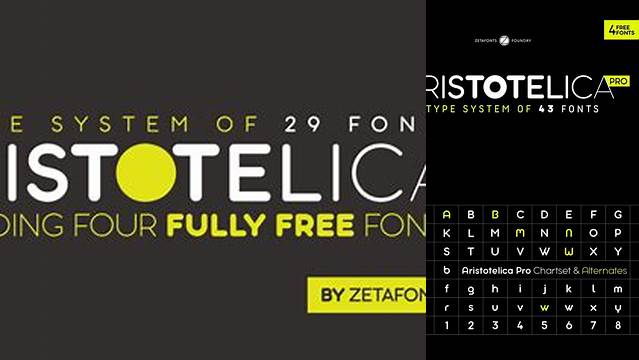
Hey guys! Are you on the hunt for a font that screams sophistication and commands attention? Look no further! We're diving deep into the world of Aristotelica Pro Display Condensed Bold, a typeface that's both elegant and powerful. And guess what? We're talking about how to get your hands on it for free! Let's get started!
What is Aristotelica Pro Display Condensed Bold?
Before we jump into the download details, let's understand what makes Aristotelica Pro Display Condensed Bold so special. This font is a member of the Aristotelica Pro family, designed with a focus on readability and visual impact. The “Display” variant indicates that it’s optimized for larger sizes, making it perfect for headlines, posters, and branding materials. The “Condensed” aspect means it’s narrower than usual, allowing you to fit more text into a limited space. And, of course, “Bold” signifies a heavier weight, adding emphasis and presence to your words. This combination of characteristics makes Aristotelica Pro Display Condensed Bold an excellent choice for projects that need a touch of class and a strong visual identity. When you're working on a design that needs to stand out, whether it's for a website header, a striking poster, or a brand logo that leaves a lasting impression, this font can be a game-changer. Its elegant yet powerful appearance ensures your message is not only seen but also remembered. Imagine using it for an event invitation; the boldness captures attention instantly, while the condensed form keeps the design sleek and modern. Or think about a corporate presentation where you need to convey authority and professionalism – Aristotelica Pro Display Condensed Bold will help you achieve just that. So, if you're looking for a typeface that combines elegance, readability, and impact, this font is definitely worth considering.
Aristotelica Pro Font Family Overview
The Aristotelica Pro font family is a versatile collection designed to meet a wide range of typographic needs. It typically includes various weights (such as regular, medium, bold, and extra bold) and styles (including roman and italic), offering designers a comprehensive toolkit. Each member of the family shares a consistent design aesthetic, ensuring harmony and coherence across different applications. This versatility is a key strength, allowing you to use different weights and styles to create visual hierarchy and emphasis within your designs. For example, you might use the regular weight for body text, the bold weight for headings, and the italic style for captions or pull quotes. The availability of multiple weights also makes it easier to adapt the font to different media, from print to digital. The detailed attention to kerning and spacing ensures optimal readability in both long-form text and shorter display settings. Furthermore, the Aristotelica Pro family often includes extended character sets, supporting a wide range of languages and typographic features like ligatures and alternate characters. These features can add a touch of sophistication and personality to your designs, making them stand out from the crowd. In essence, the Aristotelica Pro font family is a carefully crafted resource that empowers designers to create visually appealing and highly functional typography across a variety of projects, from branding and advertising to editorial design and web development.
Key Features of the Condensed Bold Style
What makes the Condensed Bold style of Aristotelica Pro so unique? Well, the “Condensed” aspect squeezes the letters horizontally, letting you fit more text in a restricted area without sacrificing readability. This is super useful for designs where space is at a premium, like posters or web banners. Then, the “Bold” weight gives the font a strong, confident look, perfect for grabbing attention. Think headlines that pop, logos that stand out, and call-to-actions that demand to be clicked! The combination of condensed proportions and bold weight gives Aristotelica Pro Display Condensed Bold a distinctive character. The condensed nature allows you to maximize space while maintaining readability, making it ideal for headlines, titles, and other display purposes where real estate is limited. The bold weight adds emphasis and impact, ensuring that your message stands out. Whether you're designing a poster, a website header, or a brand logo, this style can help you create a strong visual identity. It’s also a great choice for projects that need to convey a sense of urgency or importance, such as announcements or advertisements. Imagine using it to create a striking billboard ad or a captivating social media graphic – the Condensed Bold style will ensure your message is noticed and remembered. Furthermore, the unique letterforms of Aristotelica Pro, combined with the condensed and bold characteristics, give this style a contemporary and sophisticated look. It's a versatile option that can be used in a variety of design contexts, from corporate branding to creative projects.
Design Applications for Aristotelica Pro
Okay, so where can you actually use Aristotelica Pro Display Condensed Bold? Everywhere! Seriously, this font is incredibly versatile. Think branding, advertising, editorial design, and web design. It's great for headlines, subheadings, logos, posters, and even packaging. Basically, if you need a font that's both stylish and readable, Aristotelica Pro has got your back. In branding, it can add a touch of sophistication and modernity to your visual identity. In advertising, its boldness ensures your message grabs attention. In editorial design, it provides a clean and readable typeface for headlines and subheadings. And in web design, it helps create a visually appealing and user-friendly experience. One of the key advantages of Aristotelica Pro Display Condensed Bold is its ability to work well in a variety of contexts. It can be used for both print and digital media, and it pairs well with other fonts. Whether you're designing a brochure, a website, or a social media campaign, this font can help you achieve a cohesive and professional look. Its condensed form makes it especially useful for projects where space is limited, such as mobile apps or responsive websites. And its bold weight ensures your message stands out, even on smaller screens. So, if you're looking for a font that's both versatile and impactful, Aristotelica Pro is definitely worth considering.
Benefits of Using a Condensed Font
Condensed fonts, like Aristotelica Pro Display Condensed Bold, offer some unique advantages. Primarily, they allow you to fit more text into a given space. This is super useful when you're working with limited real estate, like in magazine layouts, website headers, or even business cards. Plus, they can create a modern and sleek aesthetic. Think about squeezing a long headline into a narrow column without sacrificing readability – that's the power of a condensed font. Beyond just fitting more text, condensed fonts also contribute to a sense of modernity and sophistication. They create a streamlined look, perfect for conveying a cutting-edge image. When used effectively, they can make your designs feel more polished and professional. This makes them an excellent choice for brands that want to project a forward-thinking identity. Whether you're designing a website, a brochure, or a business card, a condensed font can help you create a visually appealing and impactful design. They are especially useful in responsive design, where the layout needs to adapt to different screen sizes. By using a condensed font, you can ensure that your text remains legible, even on smaller devices. So, if you're looking for a way to maximize space and create a modern aesthetic, consider using a condensed font like Aristotelica Pro Display Condensed Bold.